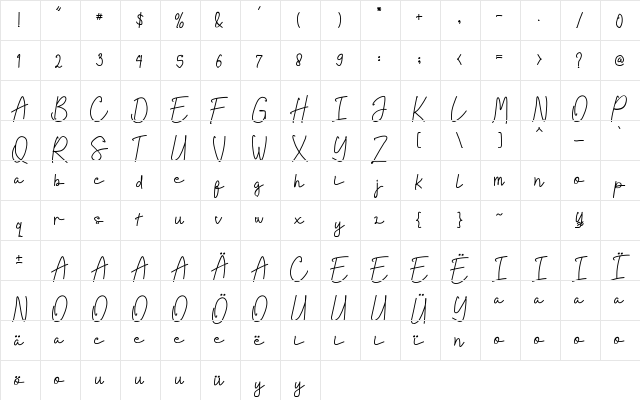
Helavionitta Regular
Design Context for Helavionitta Typeface
Helavionitta is a composed and adaptable typeface that performs quietly and consistently across a wide range of design contexts.
Pro Tip: Use Helavionitta in both headline and body roles to test its range before committing to a single application.